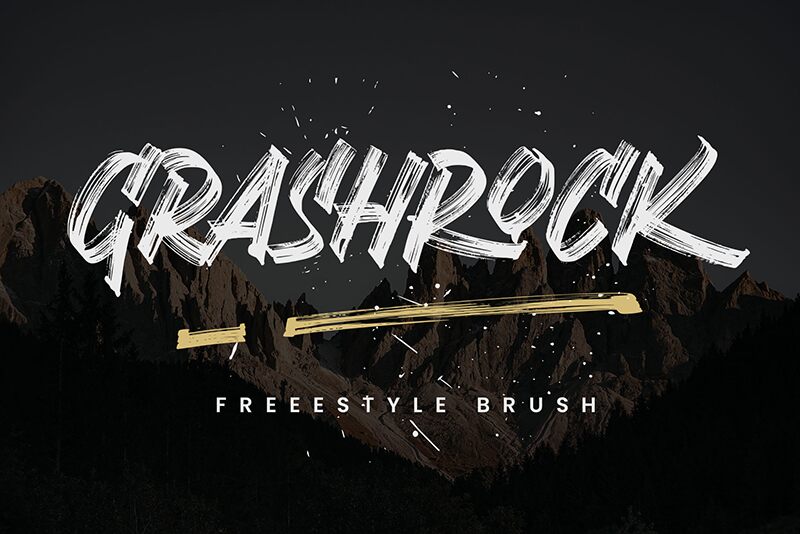
Grashrock font by Arterfak Project is a free brush font with dynamic hand-drawn letters. The sketch-like appearance of this condensed font gives it an artistic feel, creating a character infused with movement and freedom. This font exudes energy thanks to brush-style strokes and irregular forms that go beyond traditional classification.
Use Grashrock in invitations, movie titles, greeting cards, banners, stationery or branding designs. The font also works well in labels, badges or logotypes as well as posters and product packaging projects.
Grashrock